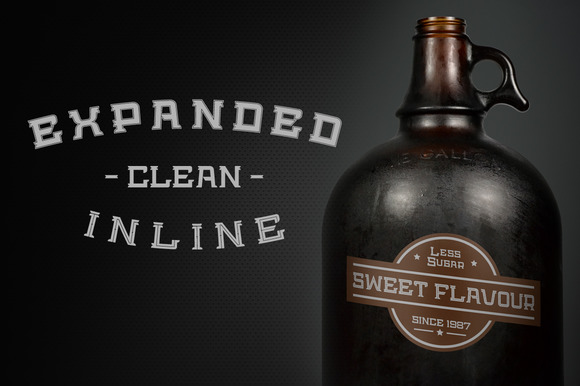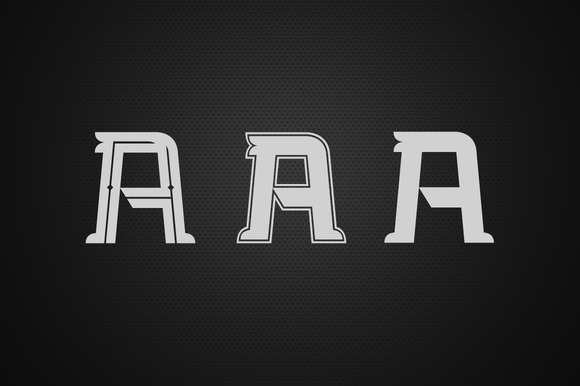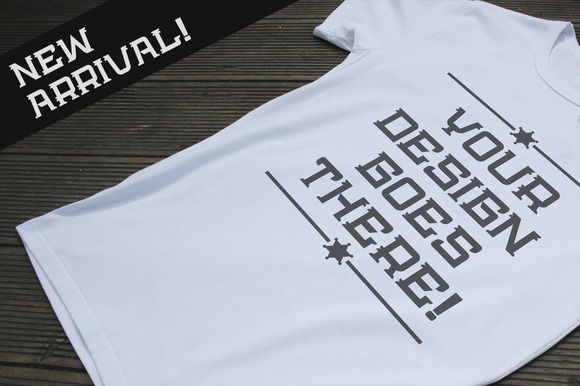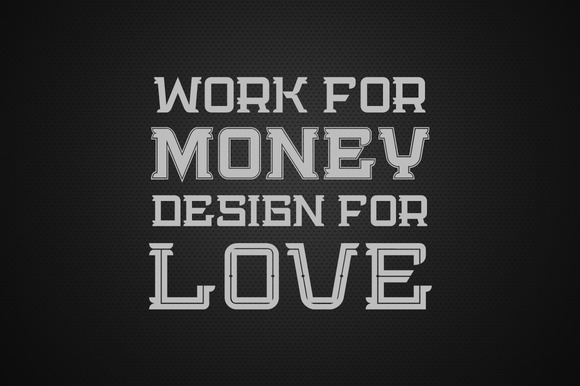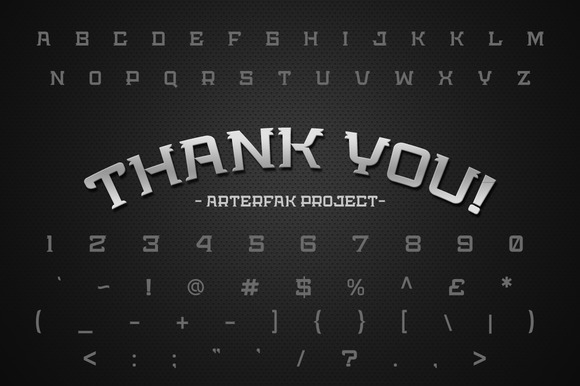
Introducing Bedengkang Font: Elevate Your Designs with Elegance
In the world of typography, a well-crafted font can make all the difference in elevating your design projects from ordinary to extraordinary. For designers and crafters seeking a unique and elegant touch, the Bedengkang Font is an exceptional choice. This stunning slab serif font is designed to maximize your products and design projects, offering a sophisticated aesthetic that’s sure to captivate your audience.
The Bedengkang Font Family: A Trio of Elegance
The Bedengkang Font family consists of three distinct styles: Clean, Inline, and Expanded. Each style offers a unique take on the classic slab serif, allowing designers to choose the perfect variation to suit their project’s needs.
- Clean: The Clean style presents a crisp, modern take on the slab serif, perfect for designs that require a subtle yet sophisticated touch.
- Inline: The Inline style adds a delicate, elegant flair to the Clean version, featuring a beautifully crafted inline design that adds depth and visual interest.
- Expanded: The Expanded style takes the slab serif to new heights, offering a more dramatic and luxurious feel that’s ideal for headlines, titles, and other display text.
Design Features and Benefits
The Bedengkang Font boasts a range of features that make it an excellent choice for designers and crafters. Some of its key benefits include:
- High-quality design: Crafted with precision and attention to detail, the Bedengkang Font features clean lines, elegant curves, and a sophisticated overall aesthetic.
- Versatility: With three distinct styles to choose from, designers can use the Bedengkang Font for a wide range of projects, from branding and advertising to packaging and digital design.
- Ease of use: The Bedengkang Font is easy to read and works beautifully in both digital and print formats, making it a great choice for designers who need to create cohesive branding across multiple platforms.
Whether you’re a professional designer or a crafty DIY enthusiast, the Bedengkang Font is an excellent addition to your toolkit. This elegant slab serif font is perfect for:
- Branding and identity: Create a lasting impression with a unique and memorable font that reflects your brand’s personality and style.
- Digital design: Use the Bedengkang Font to elevate your website, social media, or mobile app design with a sophisticated and modern aesthetic.
- Print design: Add a touch of elegance to your print materials, including business cards, brochures, and packaging.
- Crafting and DIY: Use the Bedengkang Font to add a personal touch to your handmade projects, such as signs, labels, and other decorative items.